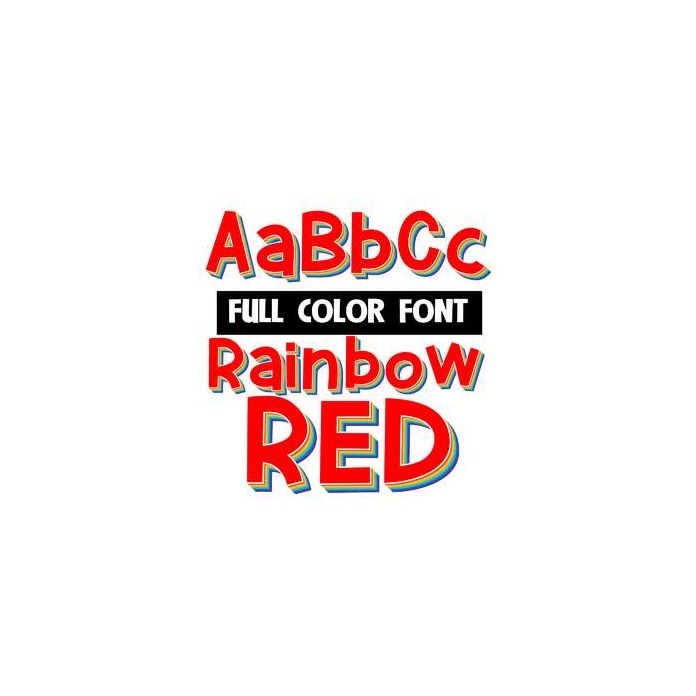
This full-color font features red letters with a rainbow background. This font works best for titles, displays, posters and more. Please note color fonts will show as black in non compatible programs. This font type is compatible with Silhouette Studio.